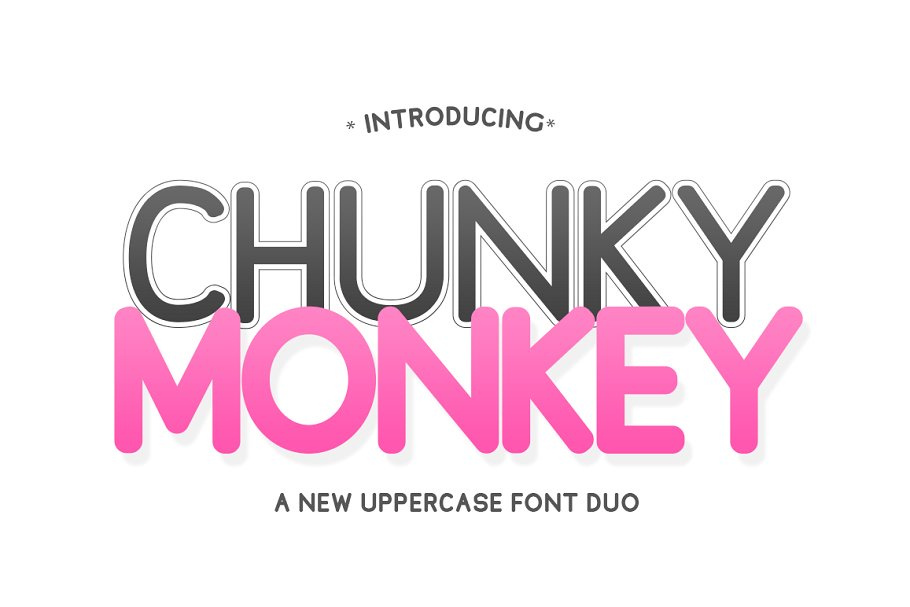
Chunky Monkey Font
Chunky Monkey Font is perfectly suited for children's book titles, playful toy packaging, fun ice cream branding, cartoon character designs, jungle-themed party materials, casual restaurant signage, zoo marketing campaigns, family entertainment graphics, and whimsical educational resources.
What makes Chunky Monkey Font so exciting is its irresistible charm and playful personality that brings instant smiles and childlike wonder to any design project through every delightfully chunky letterform that bounces with jungle energy. This adorable typeface captures the mischievous spirit of playful monkeys with its thick, rounded character shapes and bouncy proportions that evoke images of swinging through trees and carefree jungle adventures. The font's distinctive chunky styling and animated personality create an atmosphere of fun and family-friendly entertainment that resonates with children and parents who appreciate wholesome, joyful design experiences. Chunky Monkey Font stands out through its ability to convey playfulness, family fun, and childlike joy, making it perfect for projects that need to establish connections with families while creating memorable experiences that celebrate the innocent wonder and boundless energy of childhood.
The Chunky Monkey Font family includes Regular and Bold weights, each maintaining the font's distinctive chunky character while providing design flexibility for various playful applications. The family also features bouncy alternates and jungle-inspired elements that enhance the font's whimsical appeal and provide comprehensive solutions for family-friendly design projects requiring energetic personality.
The technical craftsmanship of Chunky Monkey Font includes a comprehensive character set with uppercase and lowercase letters, numerals, punctuation marks, and playful symbols that maintain the font's chunky character. The font has been optimized for both digital and print applications, ensuring consistent performance while preserving the bouncy details that give it its distinctive playful character and family-friendly appeal.
Whether you're designing children's products, creating family entertainment materials, developing educational resources, or crafting designs that need to convey childhood joy and family-friendly fun, Chunky Monkey Font delivers the perfect combination of playful authenticity and professional reliability that makes your projects delightfully memorable for families seeking wholesome entertainment and joyful childhood experiences.